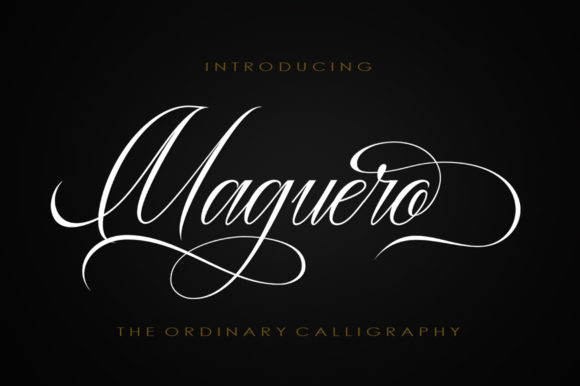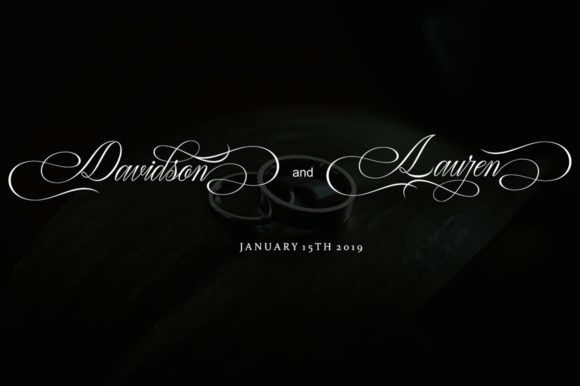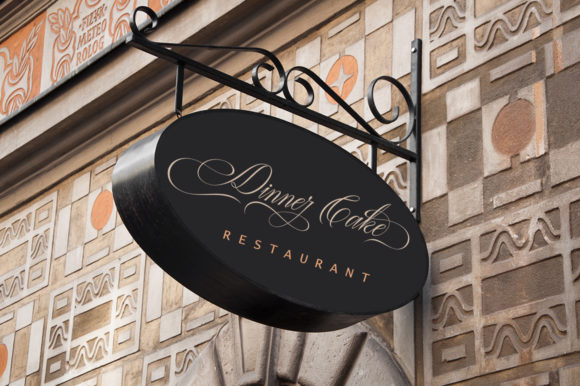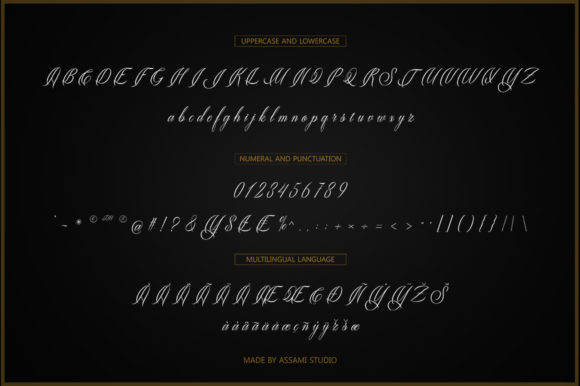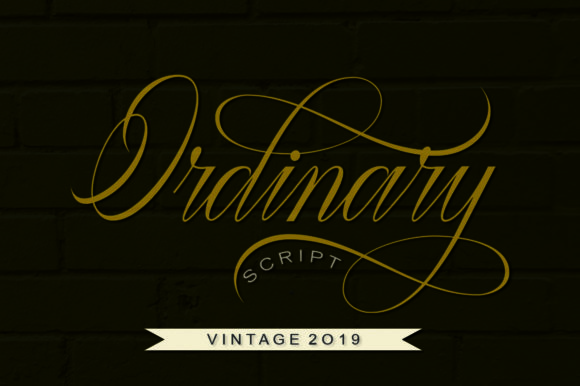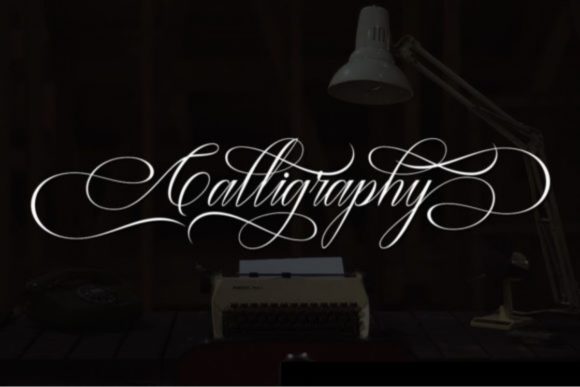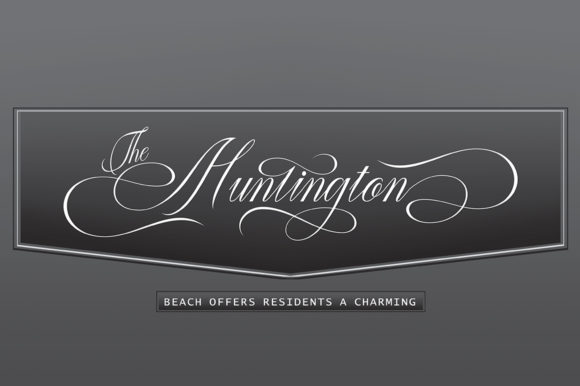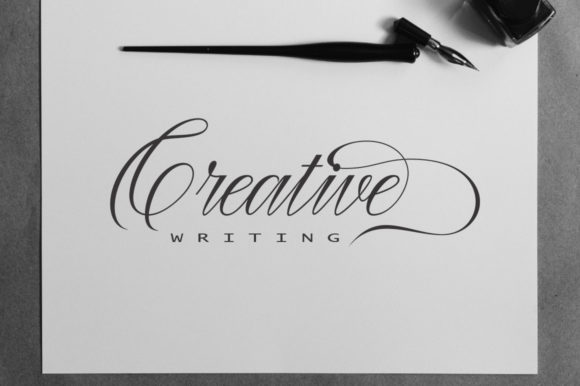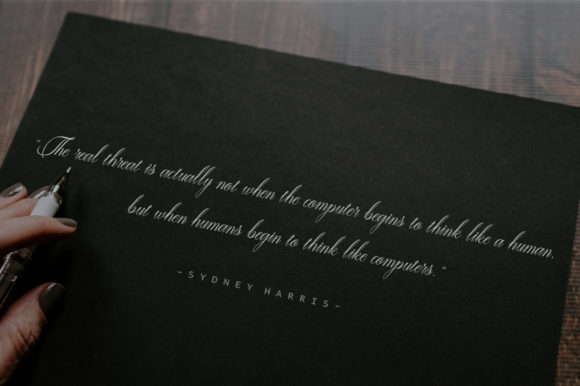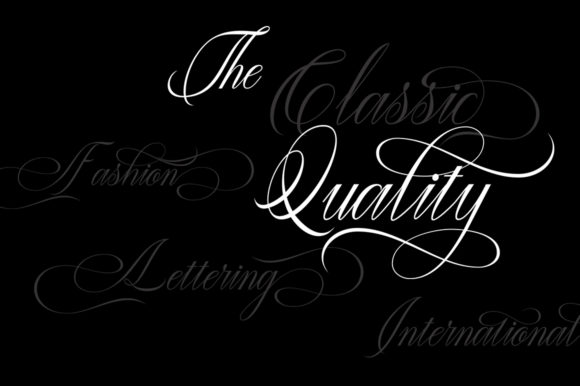
Maguero Script Font
About Maguero Script Font
Maguero is an incredibly modern and stunning handwritten font with beautiful swashes. Fall in love with this magnificent script!